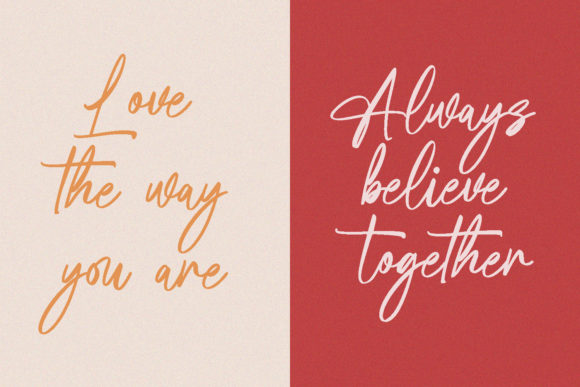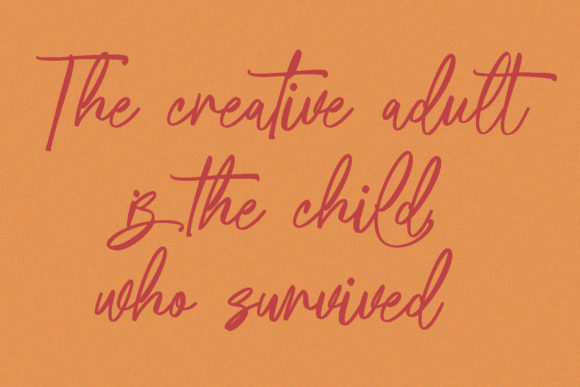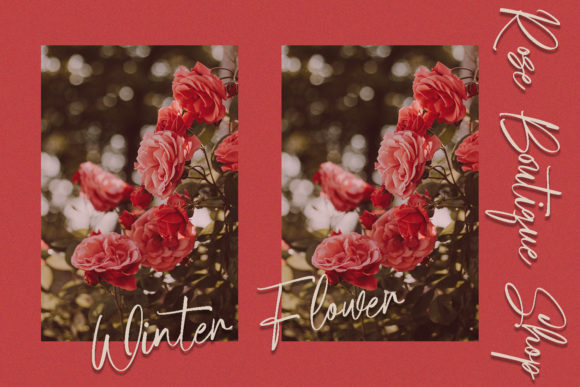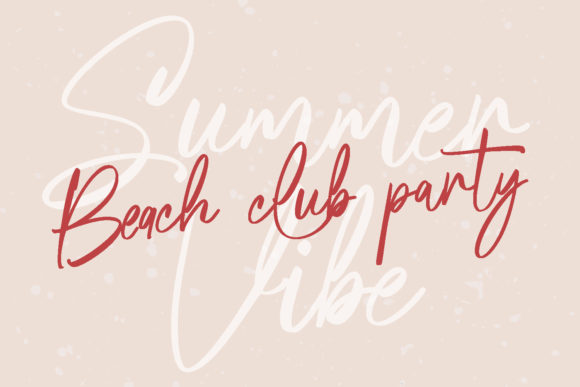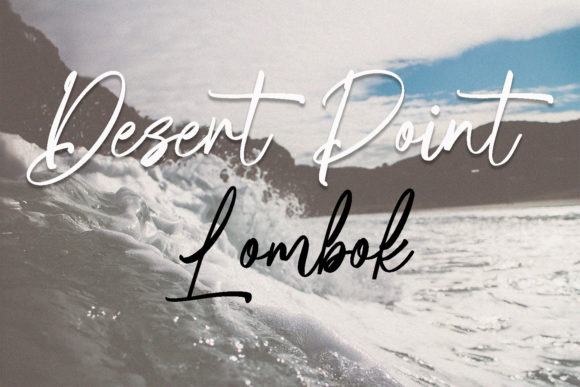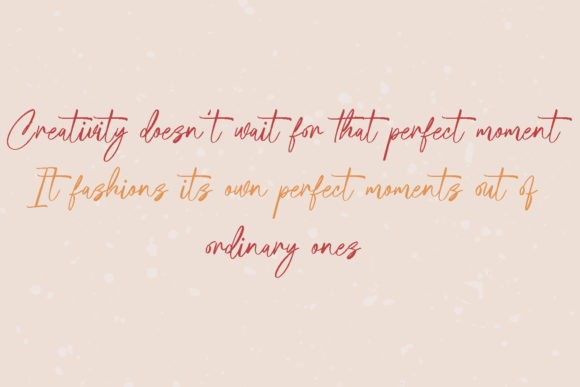
Introduction to Hole Flow Font
Hole Flow is a fashionable and subtle handwritten font that is crafted with great care for maximum results.
It will add elegance and class to any of your design projects .
Key Features of Hole Flow Font